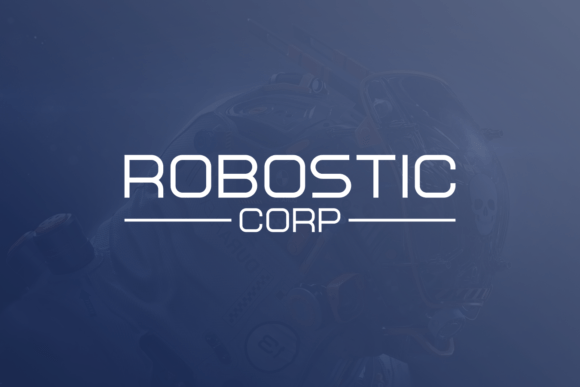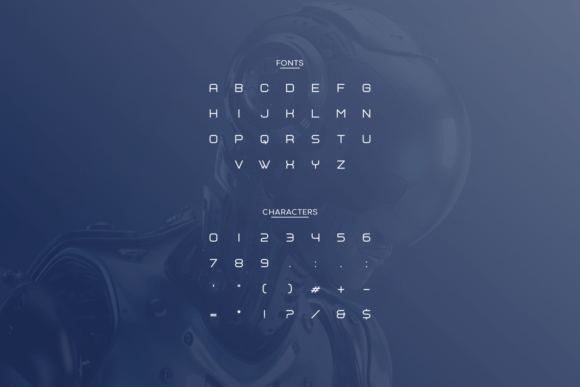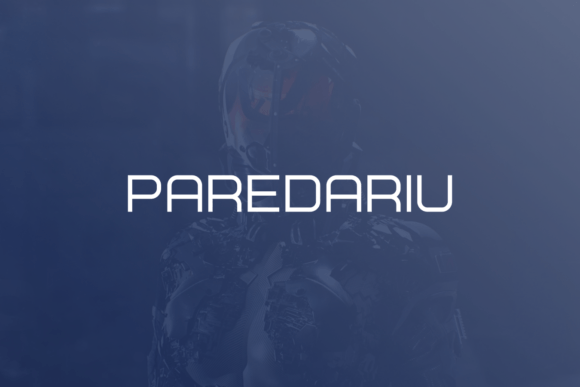
Introducing Deradioh Font: Elevate Your Designs with a Cool and Neat Display Font
Are you on the hunt for a font that can instantly elevate your headlines, branding, and logo designs? Look no further than Deradioh Font. This stylish display font is designed to bring a touch of modern elegance to your projects, making it a must-have for designers and crafters alike. In this article, we’ll dive into the features and benefits of Deradioh Font, and explore how it can take your designs to the next level.
A Simple yet Modern and Elegant Look
Deradioh Font boasts a simple yet modern and elegant look that’s perfect for creating stunning headlines, logos, and branding materials. The font’s smooth angular shape gives it a classy feel that’s sure to impress. Whether you’re working on a corporate project or a personal craft, Deradioh Font is the perfect choice for adding a touch of sophistication and style.
Key Features of Deradioh Font
• Display Font: Deradioh Font is specifically designed as a display font, making it ideal for use in headlines, titles, and other prominent design elements.
• Cool and Neat: The font’s unique design gives it a cool and neat appearance that’s sure to grab attention.
• Simple yet Elegant: Deradioh Font’s simple design belies its elegant and sophisticated feel, making it perfect for a wide range of design applications.
• Smooth Angular Shape: The font’s smooth angular shape gives it a classy and refined appearance that’s perfect for creating high-end designs.
Deradioh Font is a versatile font that’s perfect for both designers and crafters. Whether you’re working on a client project or a personal craft, this font is sure to help you create stunning designs that stand out from the crowd. Here are just a few ways you can use Deradioh Font:
• Headlines and Titles: Use Deradioh Font to create eye-catching headlines and titles that grab attention and draw the reader in.
• Logo Design: The font’s unique design makes it perfect for use in logo designs, giving your brand a professional and polished appearance.
• Branding Materials: Use Deradioh Font to create consistent branding across all your marketing materials, from business cards to brochures and more.
• Personal Crafts: Add a touch of elegance and sophistication to your personal crafts, from scrapbooking to card making and more.
Why Choose Deradioh Font?
With so many fonts to choose from, why should you choose Deradioh Font? Here are just a few reasons why this font stands out from the crowd:
• Unique Design: Deradioh Font has a unique design that’s sure to help your designs stand out from the crowd.
• High-Quality: The font is designed to be high-quality and easy to read, making it perfect for use in a wide range of design applications.
• Versatile: The font is versatile and can be used in a wide range of design applications, from headlines and titles to logos and branding materials.
In conclusion, Deradioh Font is a cool and neat display font that’s perfect for designers and crafters alike. With its simple yet modern and elegant look, smooth angular shape, and versatile design, this font is sure to elevate your designs and help you create stunning headlines, logos, and branding materials. So why wait? Download Deradioh Font today and take your designs to the next level!